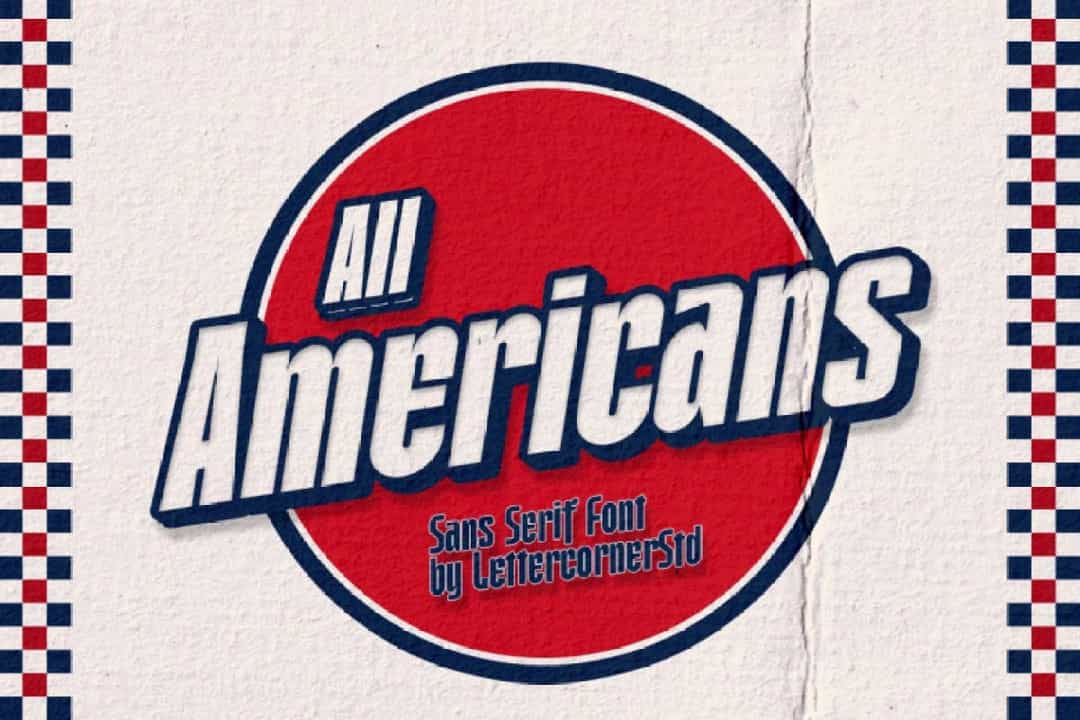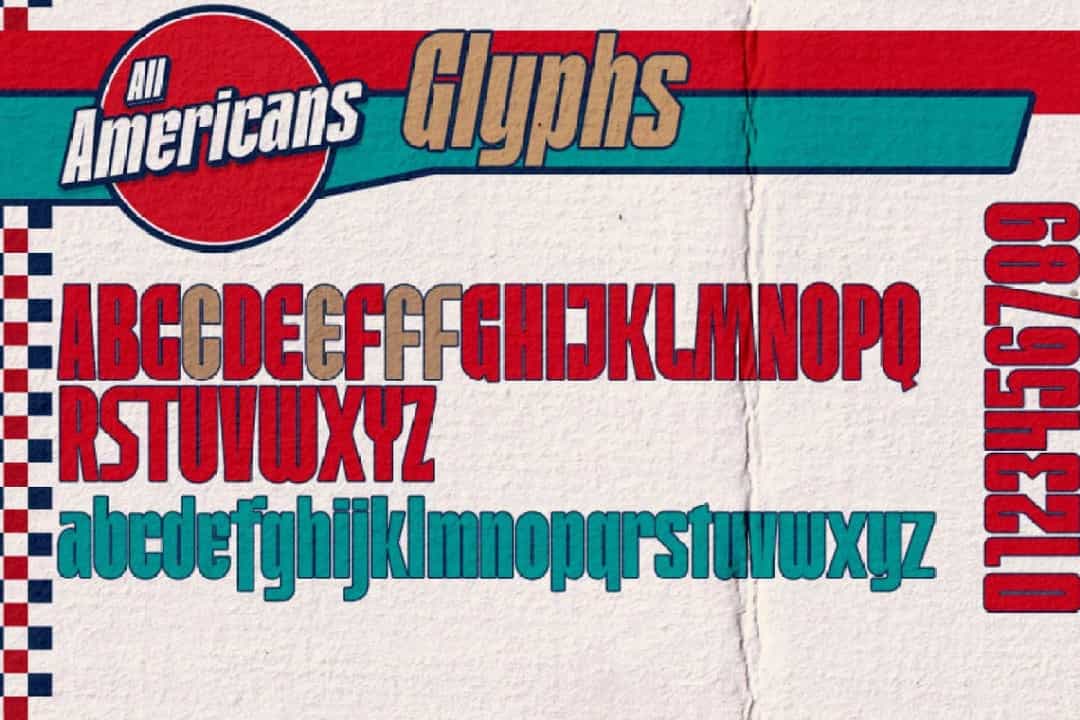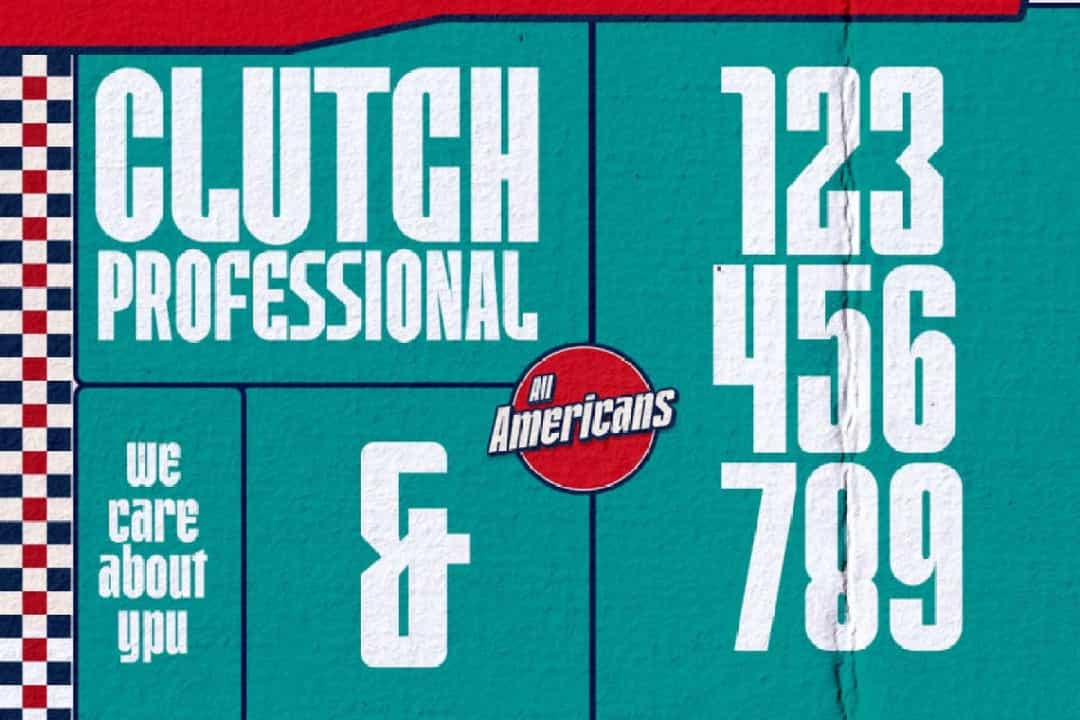
All American is an extremely durable sans-serif font with an iconic look, inspired by retro motorcycle typeface. Perfect for creating elegant logos, brand movie posters layout magazines sports clothing packaging products quotes all year around or simply adding text overlay to every background picture this font makes an eye-catching statement!